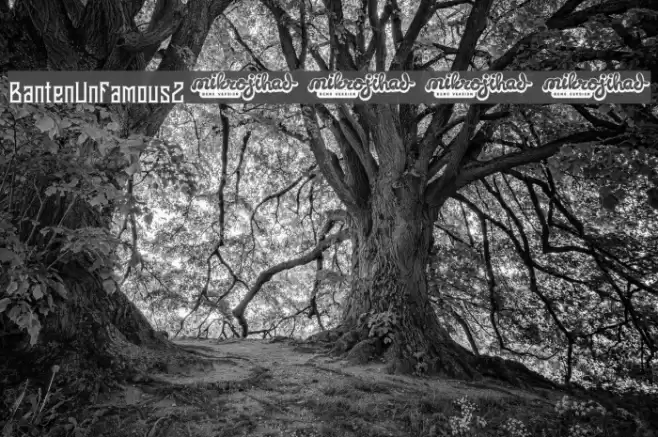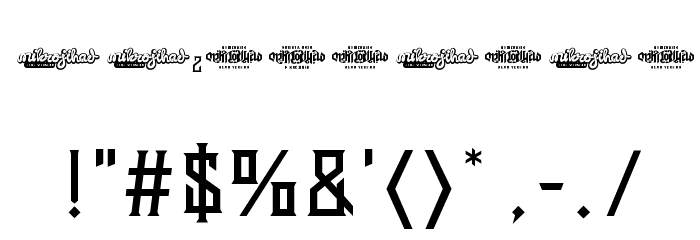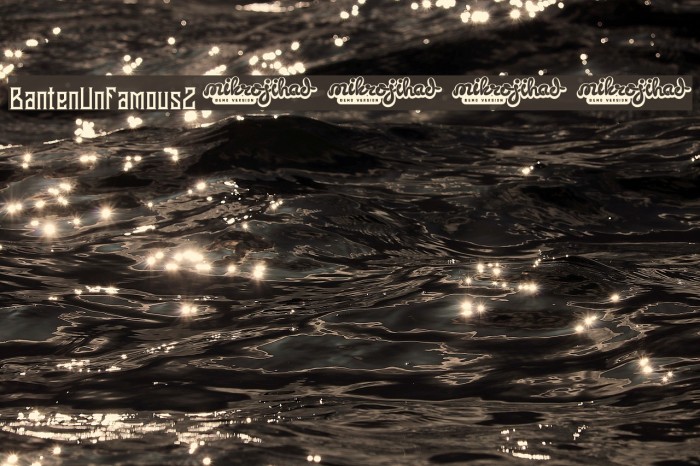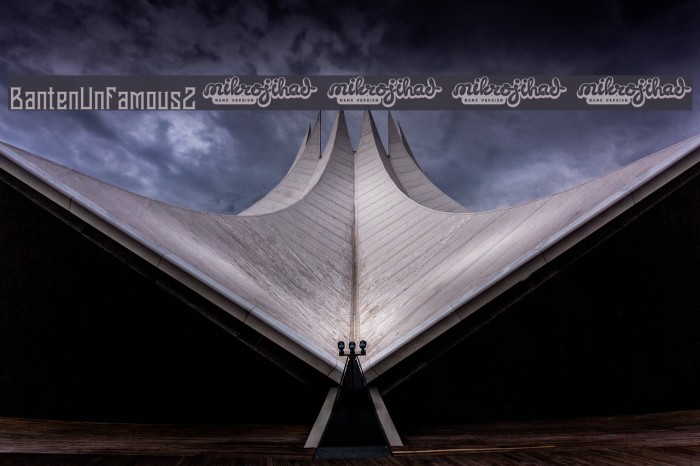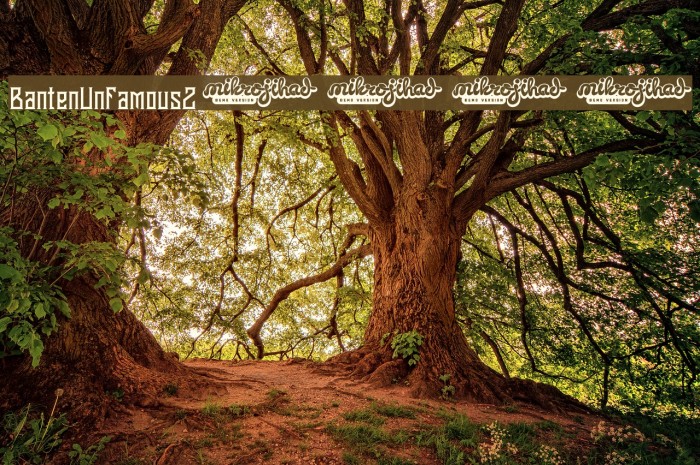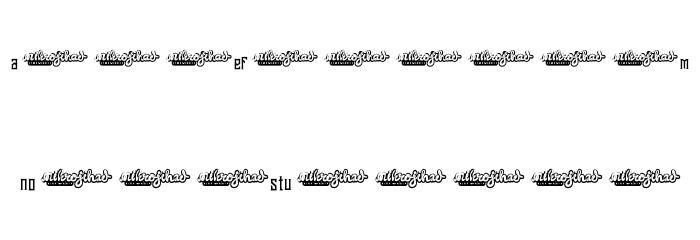
BantenUnfamous2DEMO Font
BantenUnfamous2DEMO Description
This font features a bold and decorative style with a strong presence. The characters are intricately designed, showcasing a unique blend of modern and vintage elements. Each letter is adorned with elaborate details, making it stand out as a display typeface. The uppercase letters are particularly striking, with a sense of grandeur and elegance. The lowercase letters maintain the decorative theme, offering a cohesive look across the alphabet. The numerals and special characters are equally ornate, ensuring consistency throughout the font. This typeface is ideal for projects that require a touch of sophistication and flair.
A bold, decorative font with intricate details and a blend of modern and vintage styles from Uncategorized fonts.